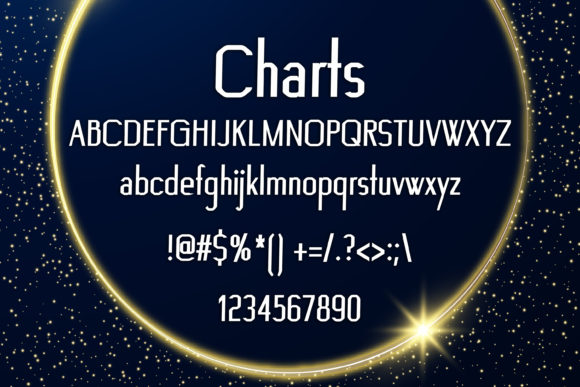
The Power of Charts Font: Elevating Your Design to New Heights
Have you ever been brainstorming a new project, and suddenly, an idea sparks in your mind? The excitement is palpable, and you can’t wait to bring it to life. For designers, those ‘aha’ moments are what drive creativity and innovation. But, have you ever thought about what gives those ideas an extra boost of energy and sophistication?
Enter Charts Font, a bold and strong lettered display font that can add a futuristic twist to any design. This geometrically shaped font is designed to make a statement, and when used correctly, it can elevate your ideas to new heights. Whether you’re working on a sci-fi novel, a futuristic app, or a cutting-edge advertisement, Charts Font is the perfect companion to bring your vision to life.
Charts Font Key Features
- Unique Characteristics: Features a clean, modern design with precise lines and subtle nuances, ideal for creating visually appealing charts and graphs.
Designer Review: Charts Font
Overall, I found Charts Font to be a decent, if unremarkable, choice for data visualization projects. There are a few things that work well: ✨ The font’s clean, modern aesthetic lends itself well to displaying complex data in a clear and concise manner. ✨ The font’s range of weights and styles allows for some flexibility in terms of presentation. ✨ The font’s OpenType features enable advanced typographic effects, which can be useful for creating visually appealing charts and graphs.
However, there are some limitations to be aware of: ⚠️ The font’s readability can suffer at smaller point sizes, which may be a concern for projects with tight space constraints. ⚠️ The font’s lack of serif options may not be suitable for projects that require a more traditional, formal look. ⚠️ The font’s price point is slightly higher than some other fonts on the market, which may be a deterrent for budget-conscious designers.
Overall, I would say that Charts Font is a solid choice for designers working on data visualization projects, but it may not be the best option for every project. With some careful consideration of its limitations, it can be a valuable addition to a designer’s toolkit.
- Recommended for data visualization projects
- Modern, clean aesthetic
- OpenType features enable advanced typographic effects
- Limited readability at smaller point sizes
- Lack of serif options
Charts Font Practical Application Guide
Tips for Getting the Most Out of Charts Font
Use Charts Font to create visually appealing charts and graphs in your designs. Experiment with different font styles and sizes to achieve the desired effect. Consider combining Charts Font with other design elements, such as colors and graphics, to enhance the overall visual impact.
Charts Font is ideal for creating presentations, infographics, and reports that require a clear and concise visual representation of data. It’s also suitable for designing marketing materials, such as brochures and flyers, that need to convey information in a visually appealing way.